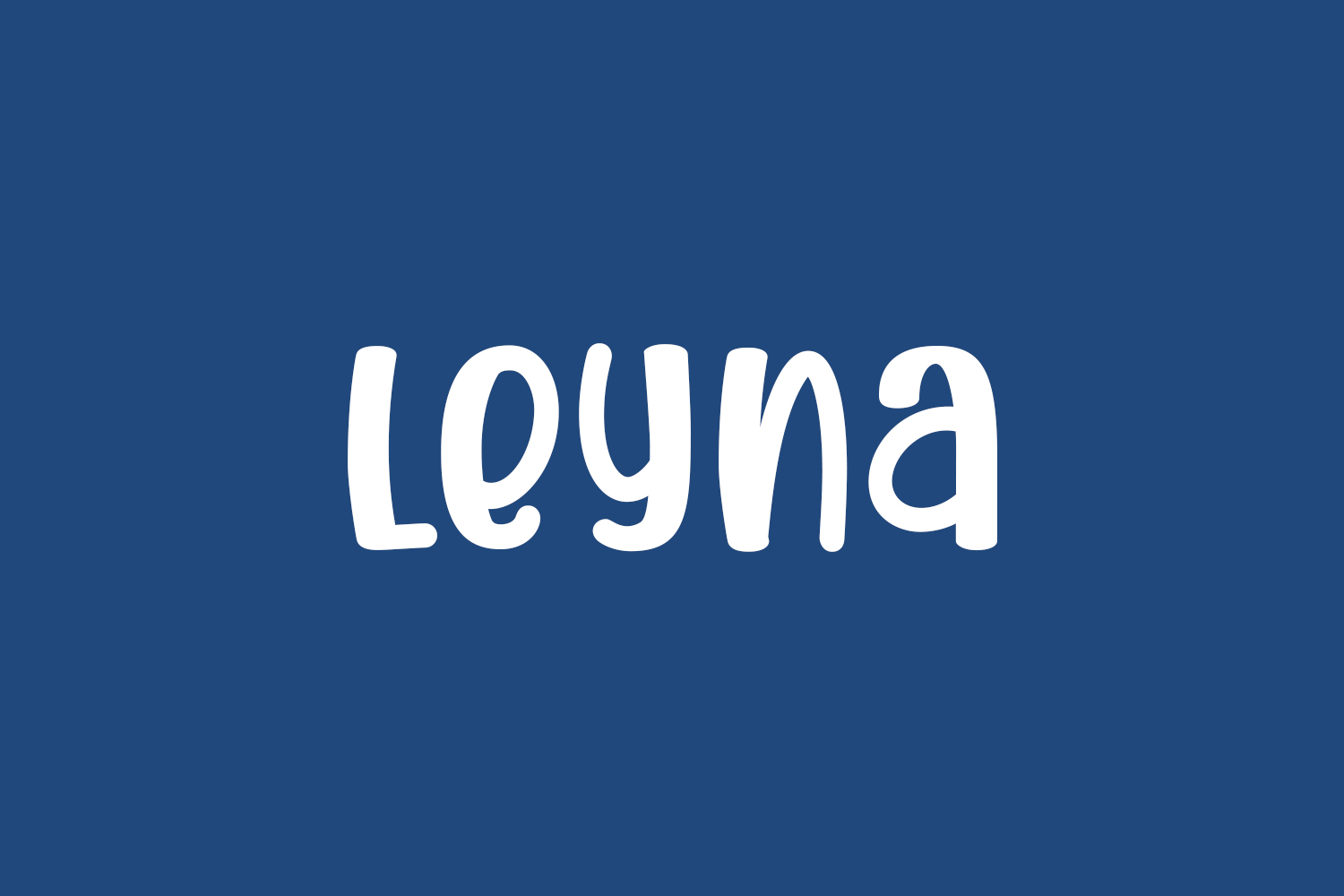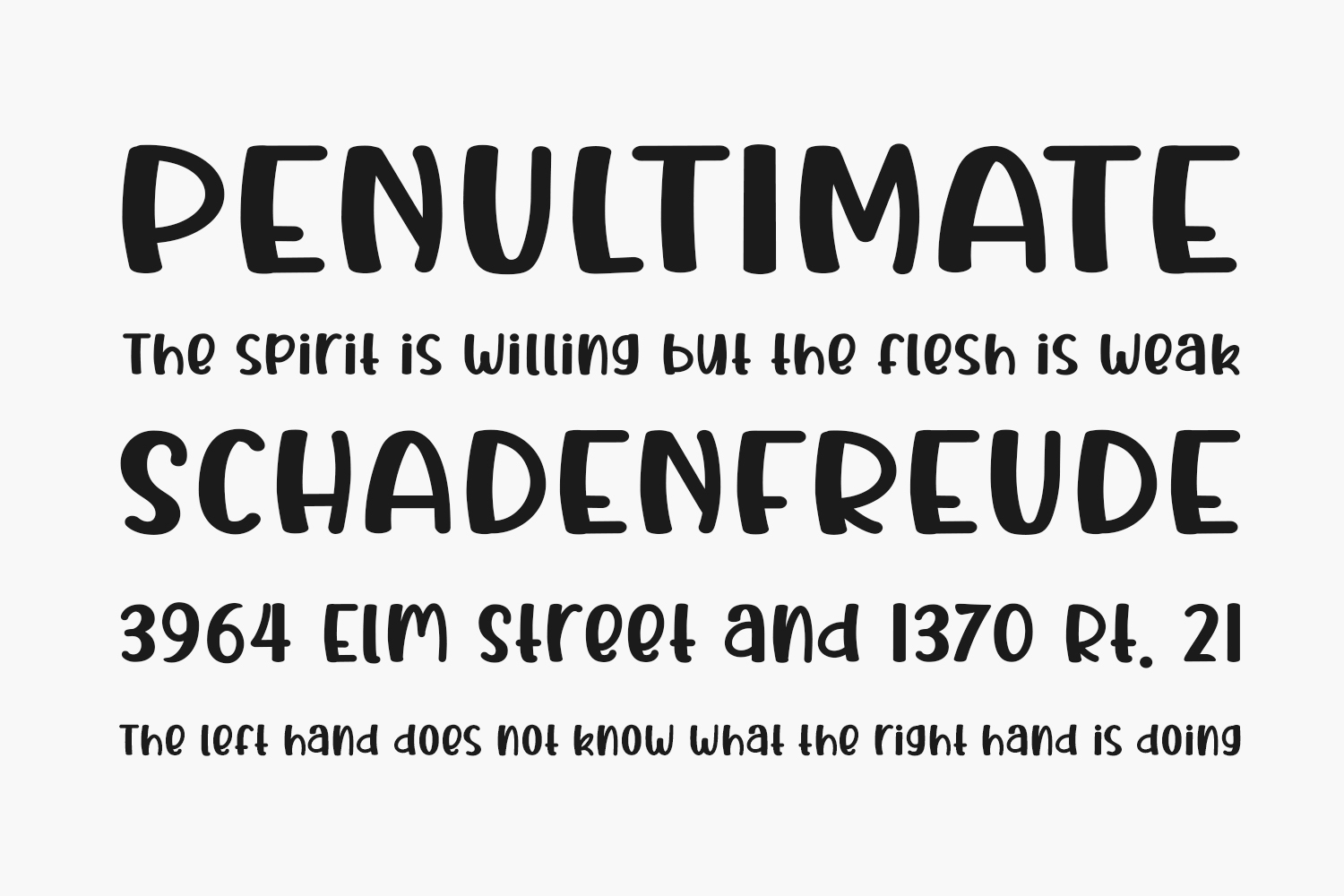
Leyna Free Font is a cool, trendy, and bold display font. Whether you’re looking for fonts for Instagram or calligraphy scripts for DIY projects, this font will turn any creative idea into a true piece of art. Leyna Free Font is free for personal use only. Please purchase the full version for commercial use.
Designed by Nirmala Creative